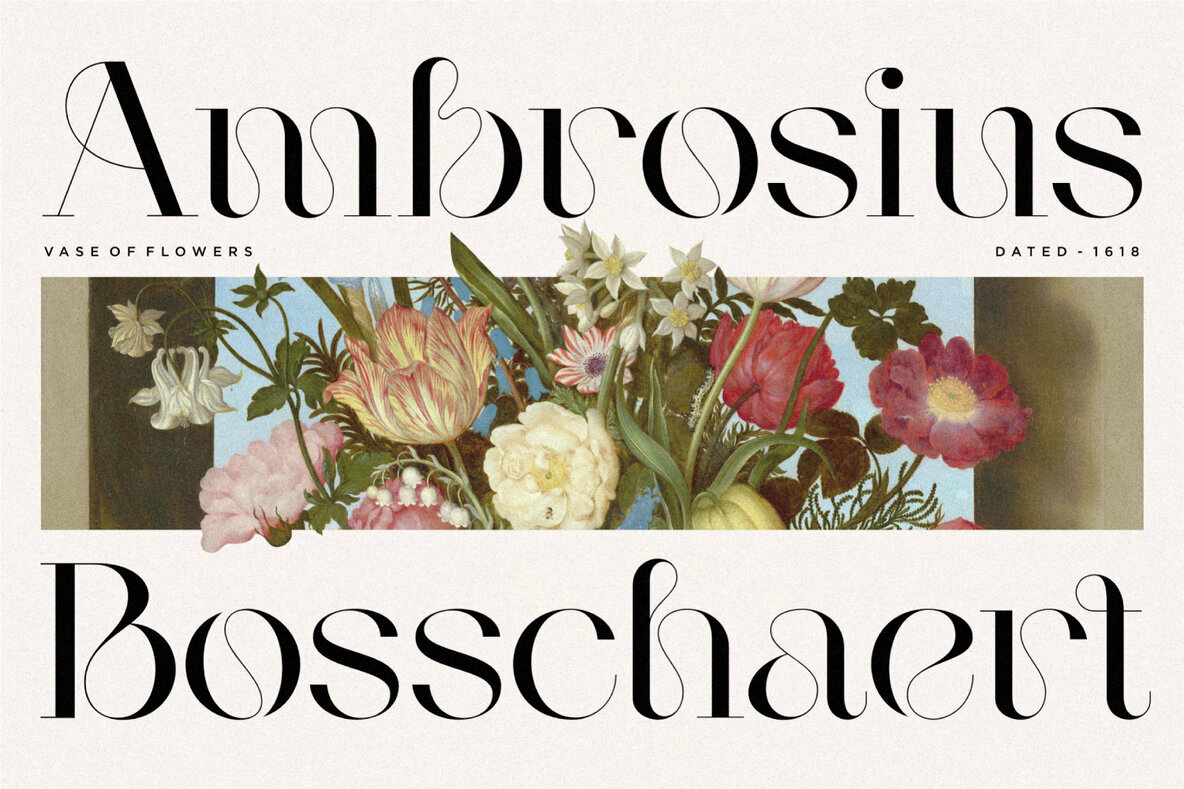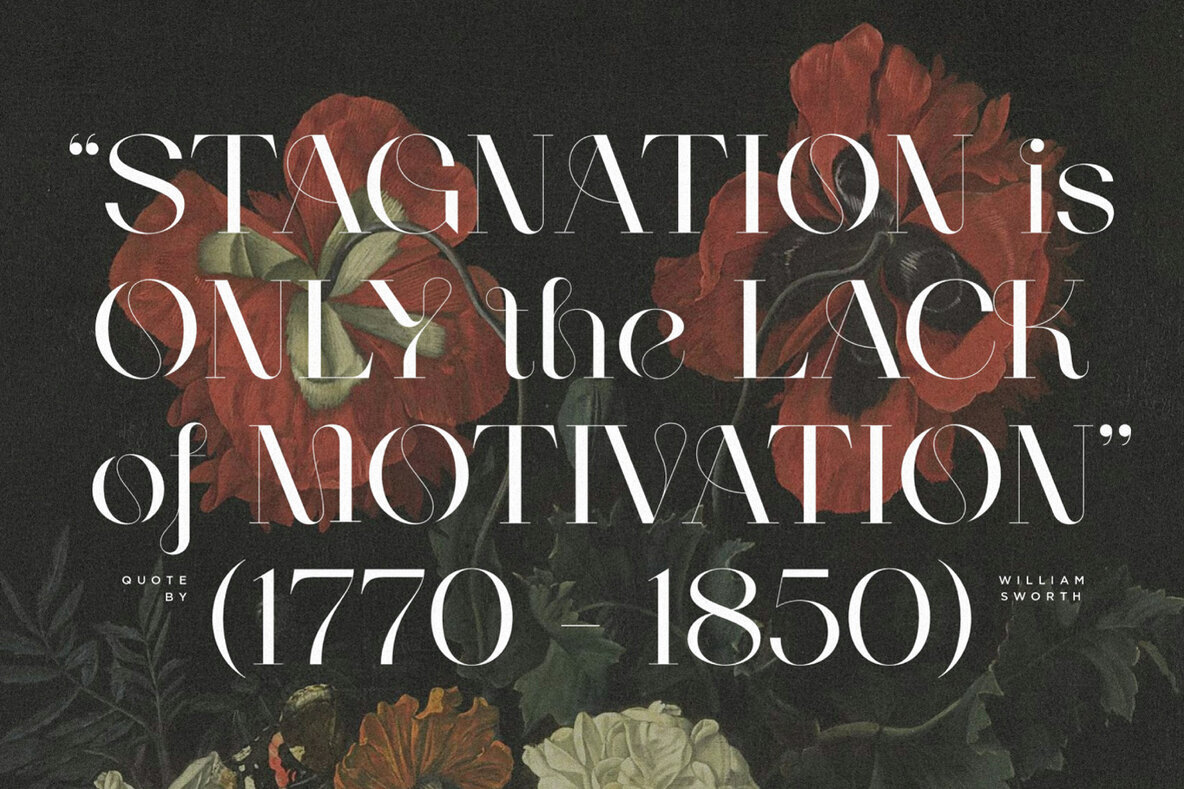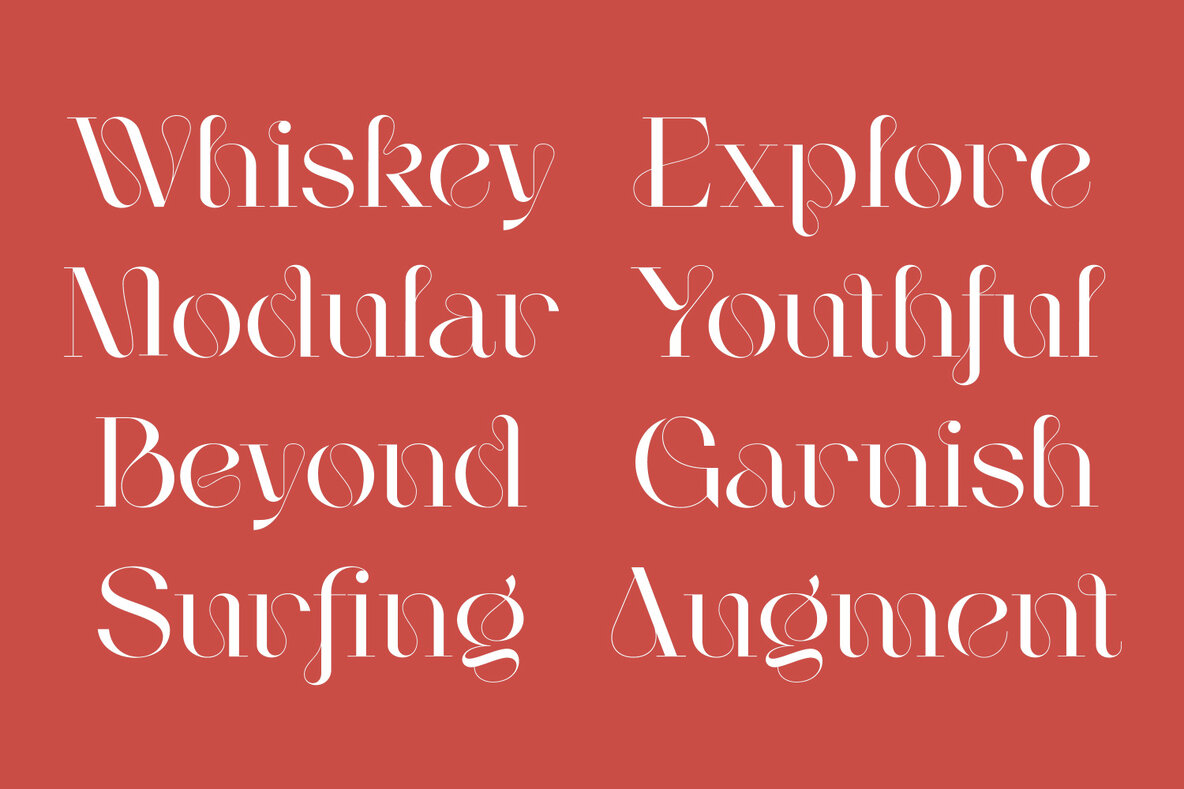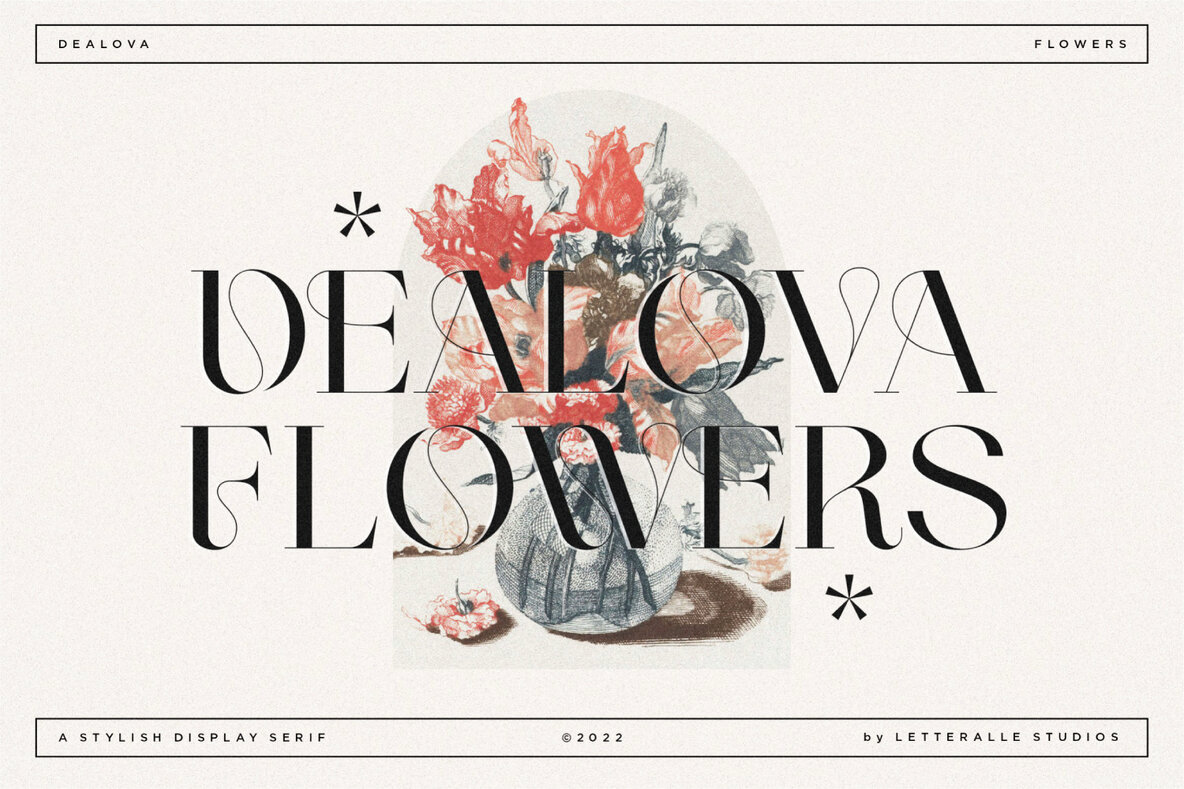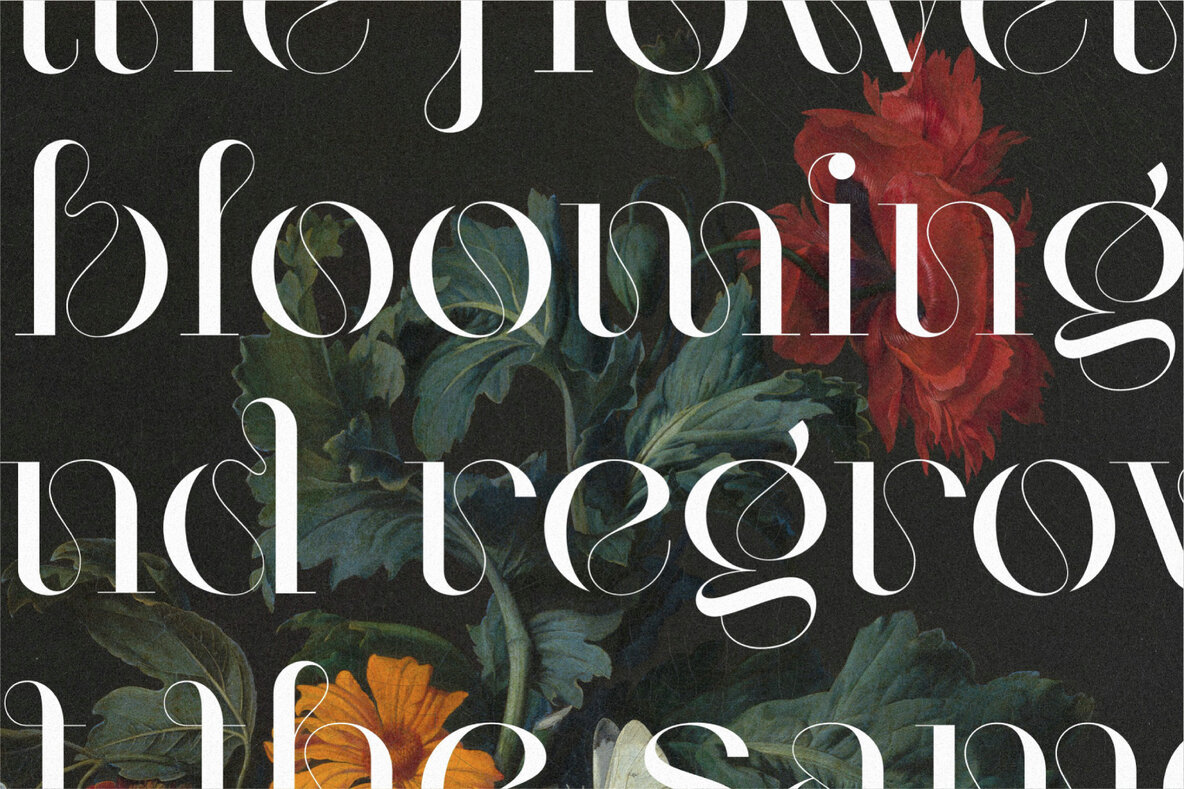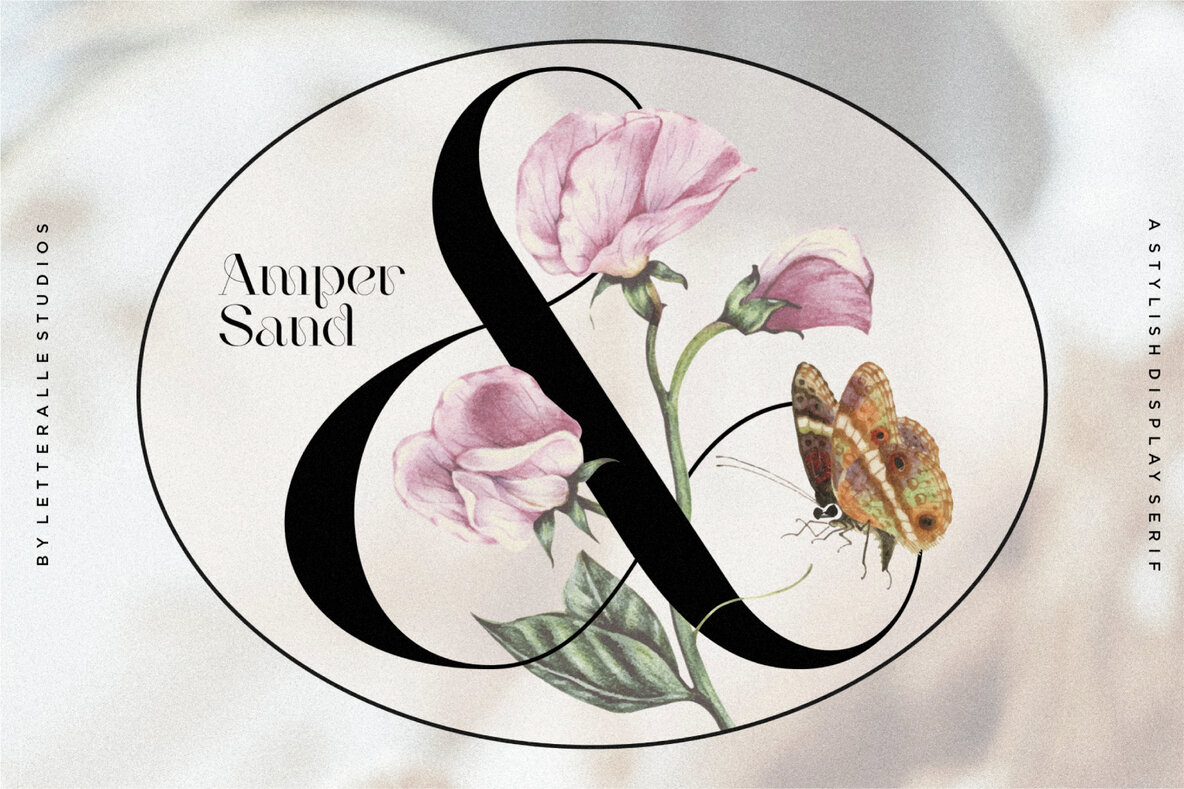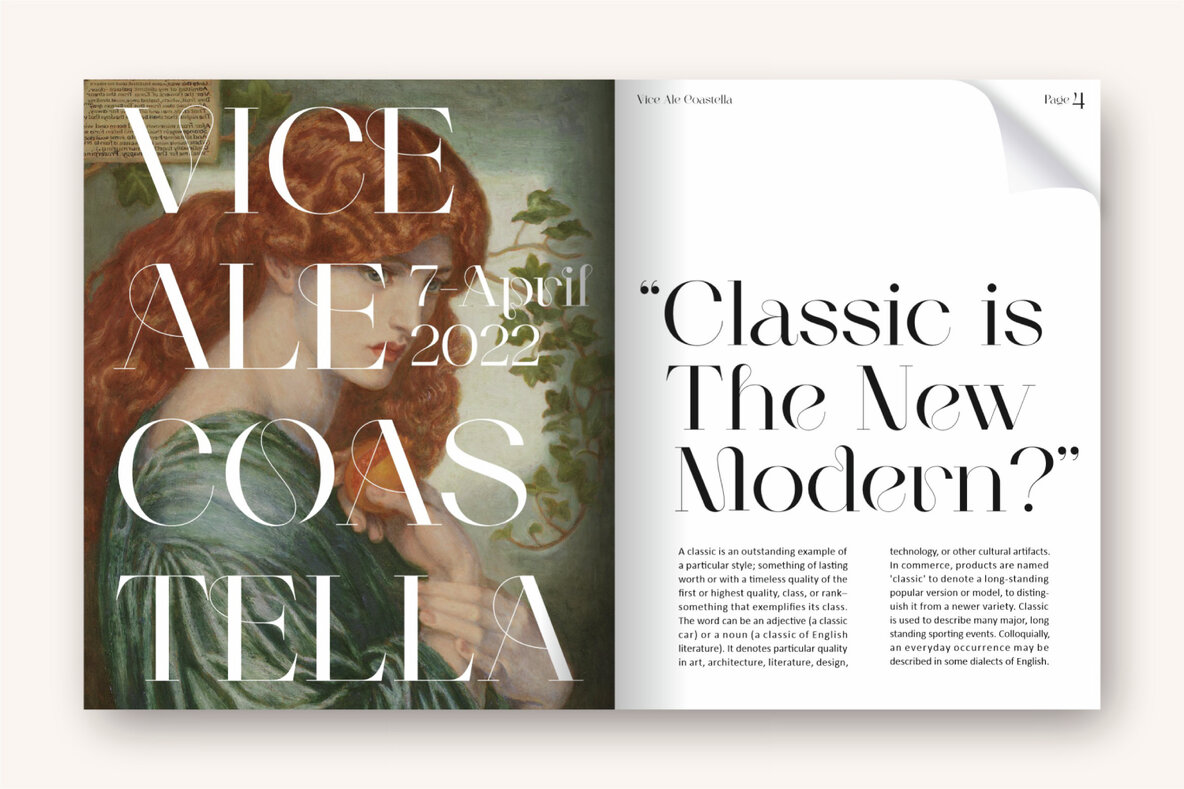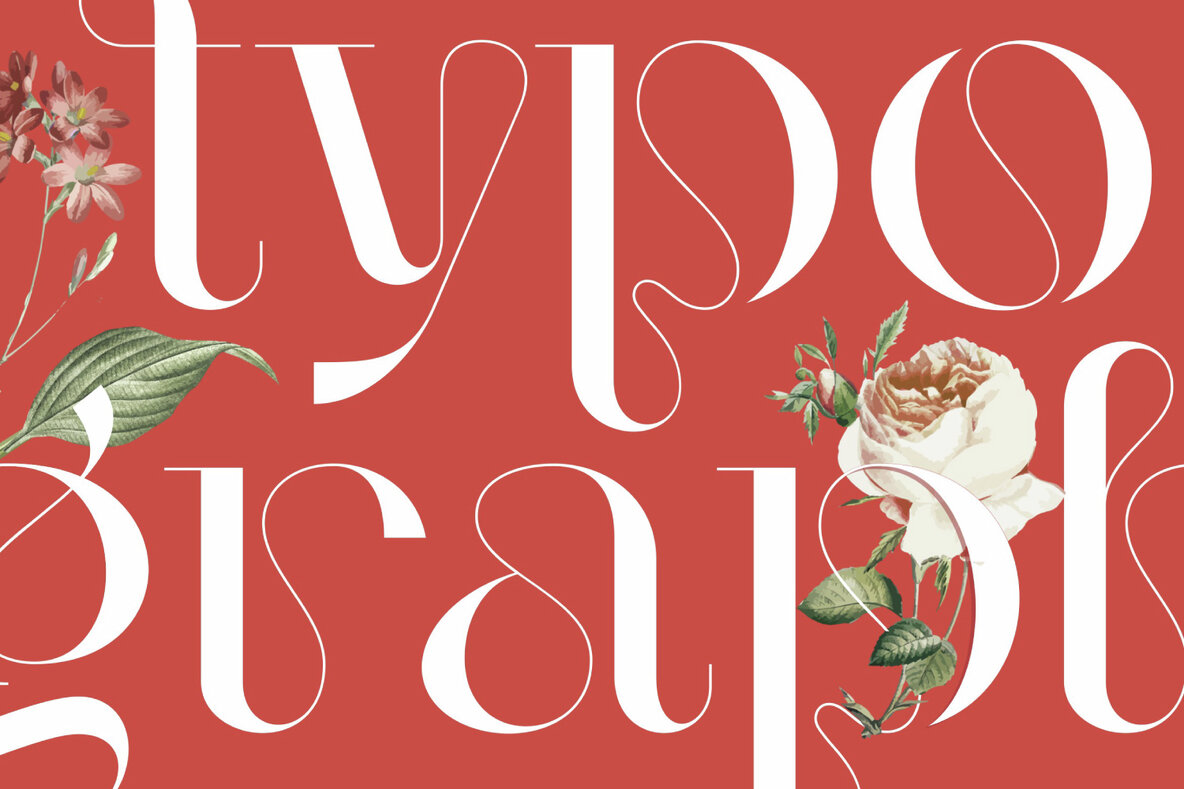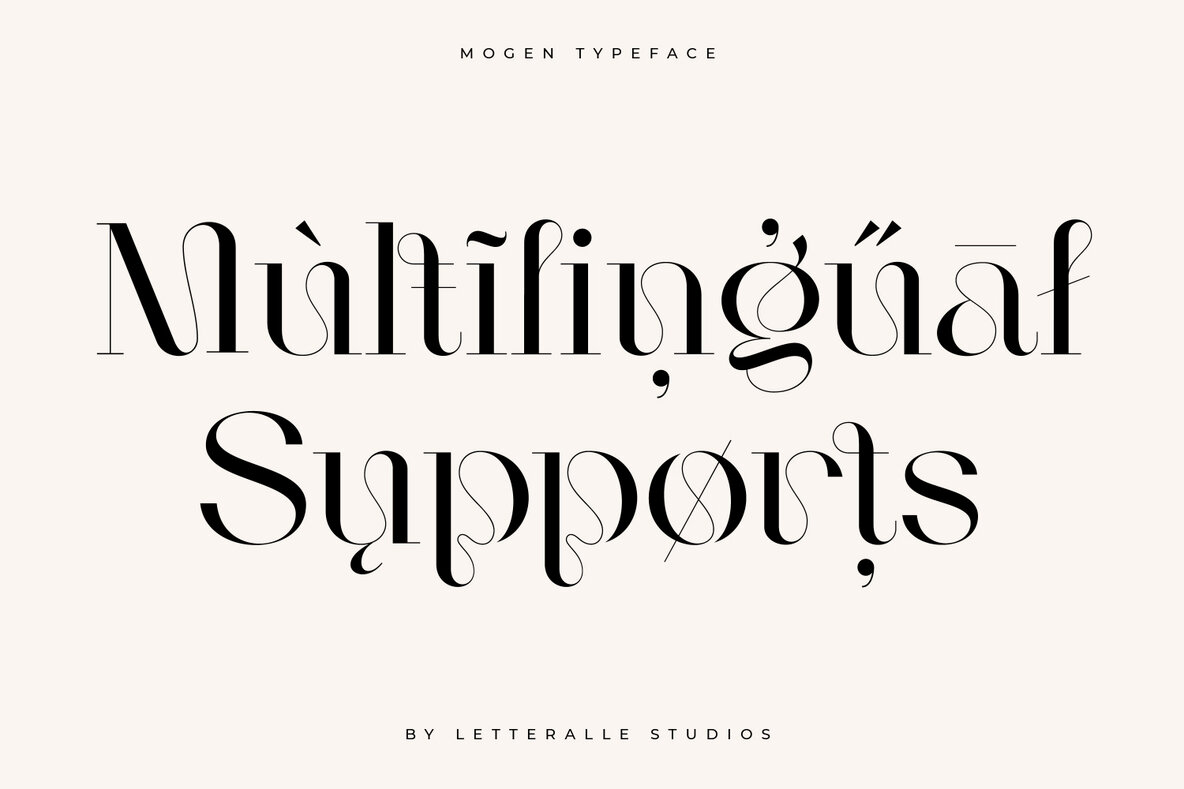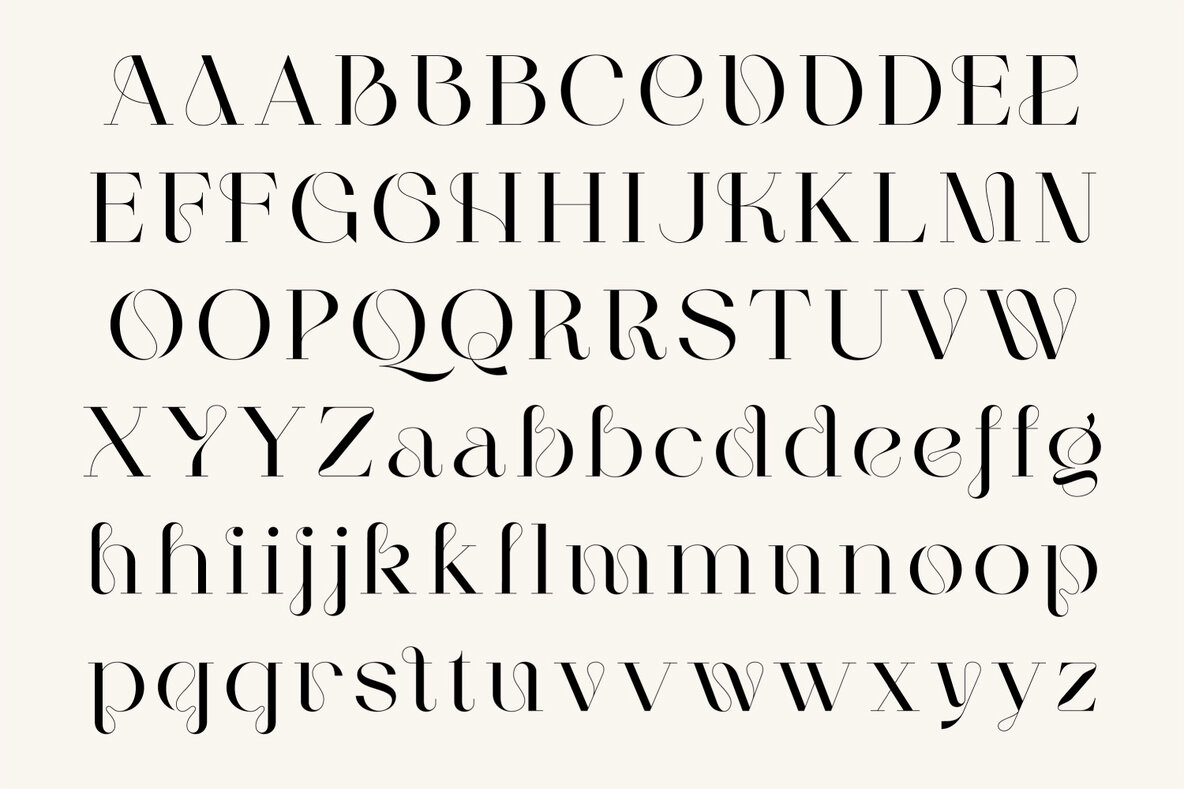
Mogen Font
Mogen is a serif display font that combines modern elegance with a luxurious touch. Its aesthetic, unique letterforms, soft curves, and distinct shapes make it truly iconic. Ideal for editorial projects, logo design, wedding invitations, clothing branding, product packaging, and magazine headers, Mogen lends a stylish and sophisticated feel to any project. It also works beautifully as a text overlay on background images, instantly catching the eye.
This font includes a complete set of uppercase and lowercase characters, ligatures, numerals, punctuation, and multilingual accents, ensuring versatility across various design needs. Mogen's blend of modern sophistication and playful curves makes it a standout choice for designers seeking a unique and memorable typeface.